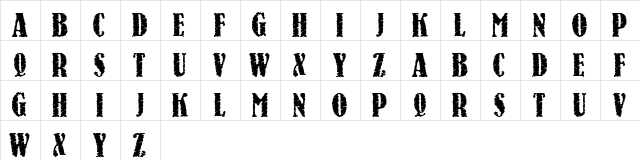
Raven Regular Font Preview
Raven Regular
Raven Regular Font Details
Design Context for Raven Typeface
Raven is a composed and adaptable typeface that performs quietly and consistently across a wide range of design contexts.